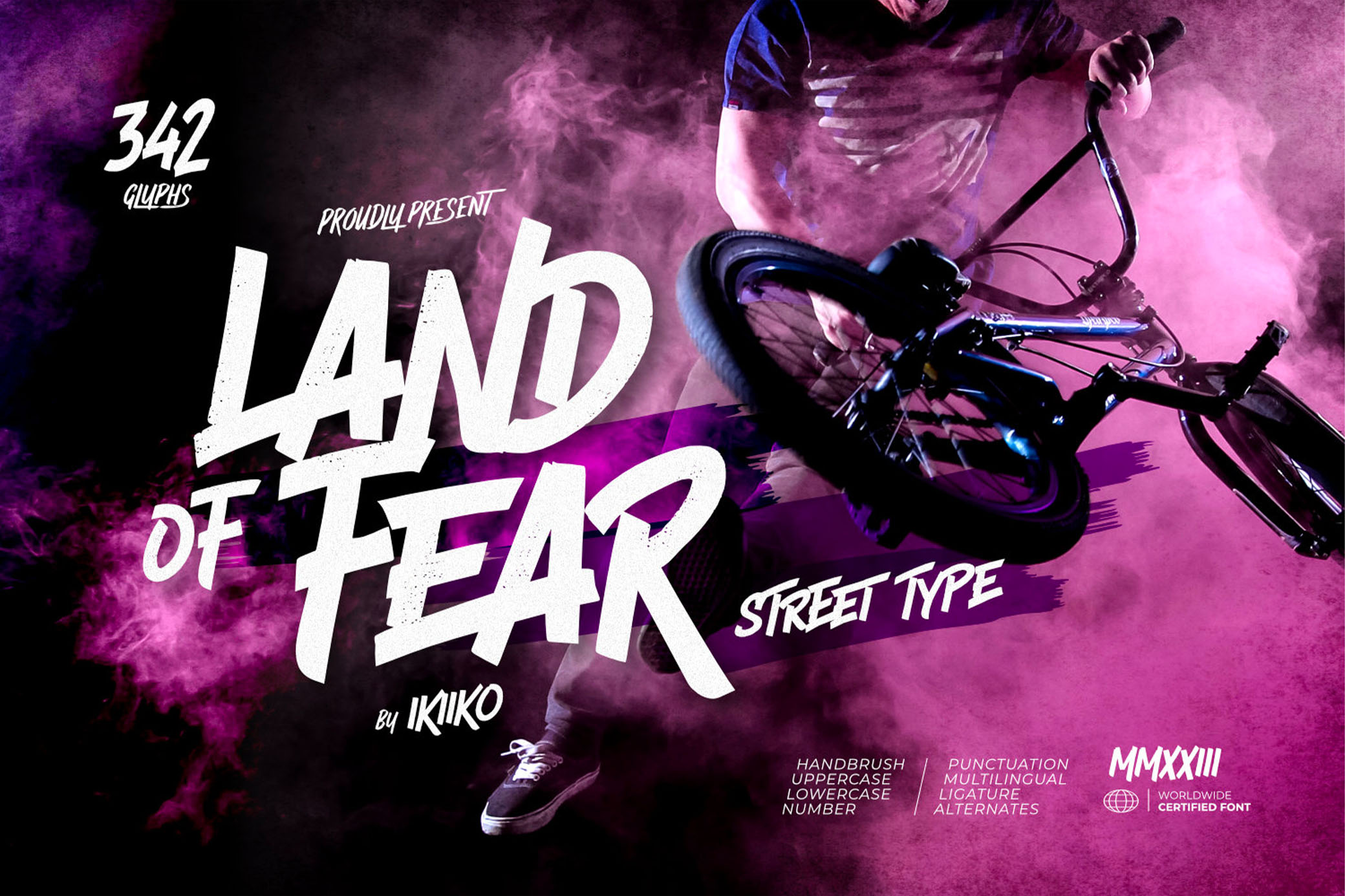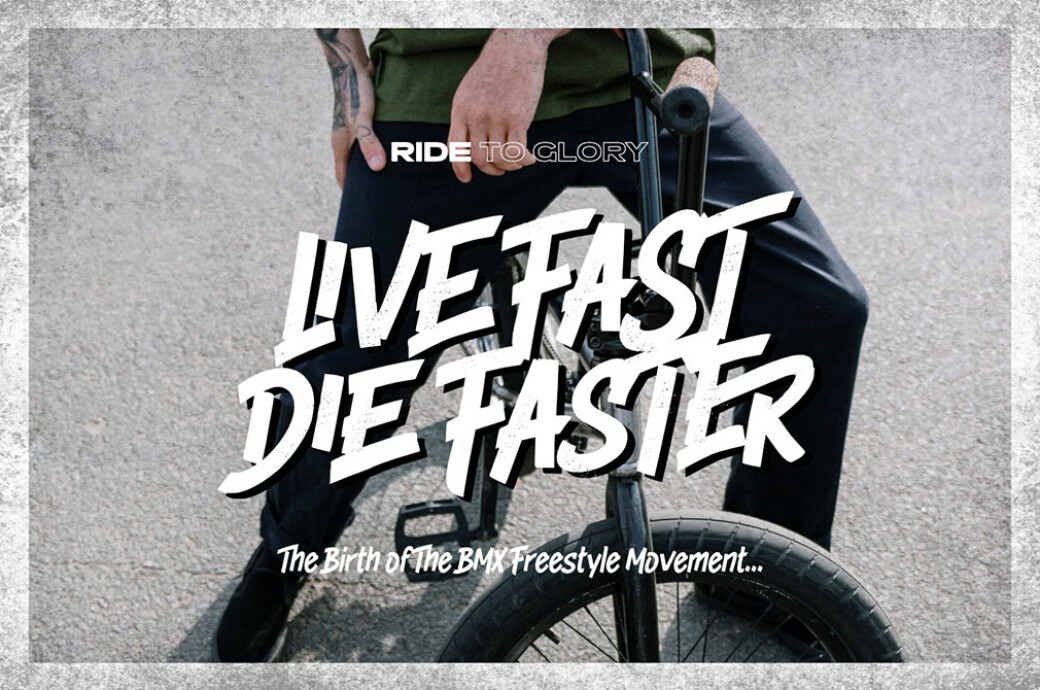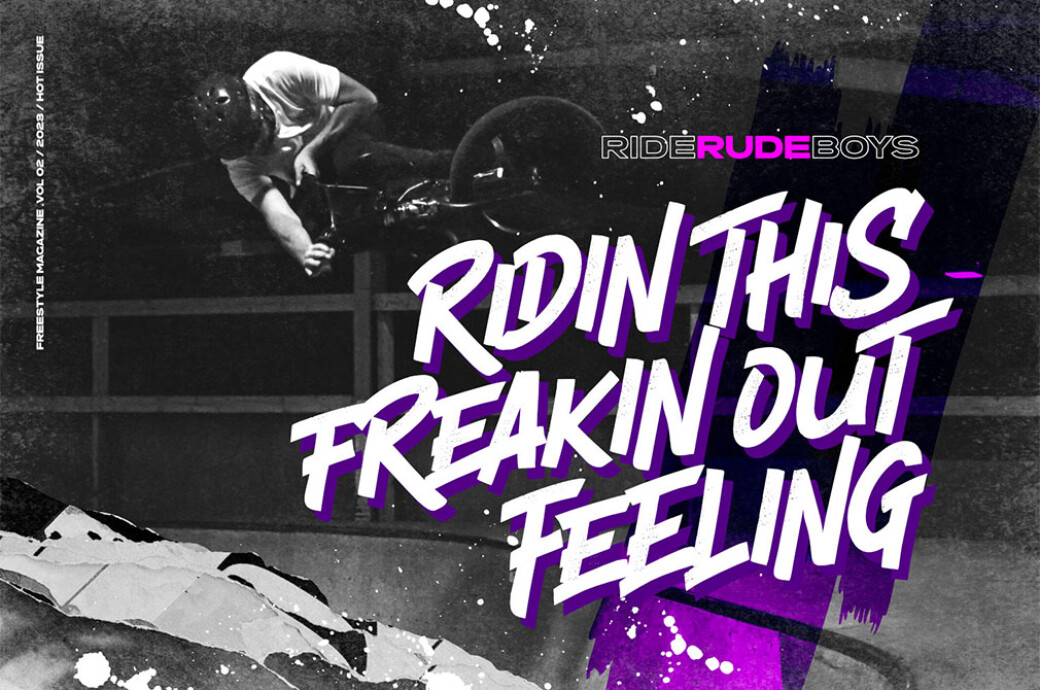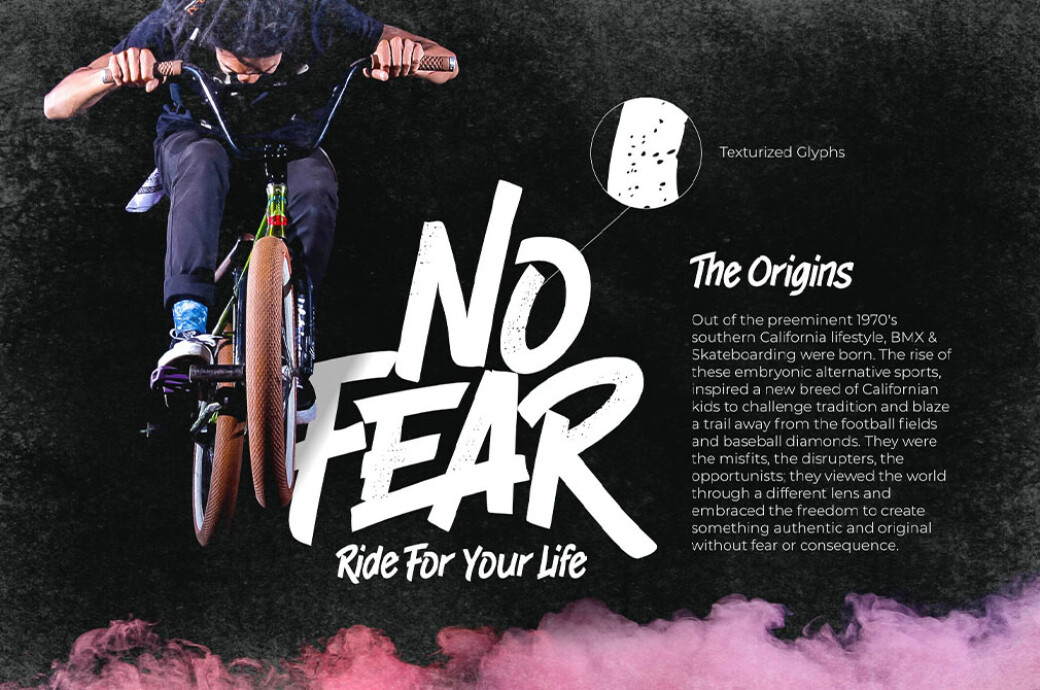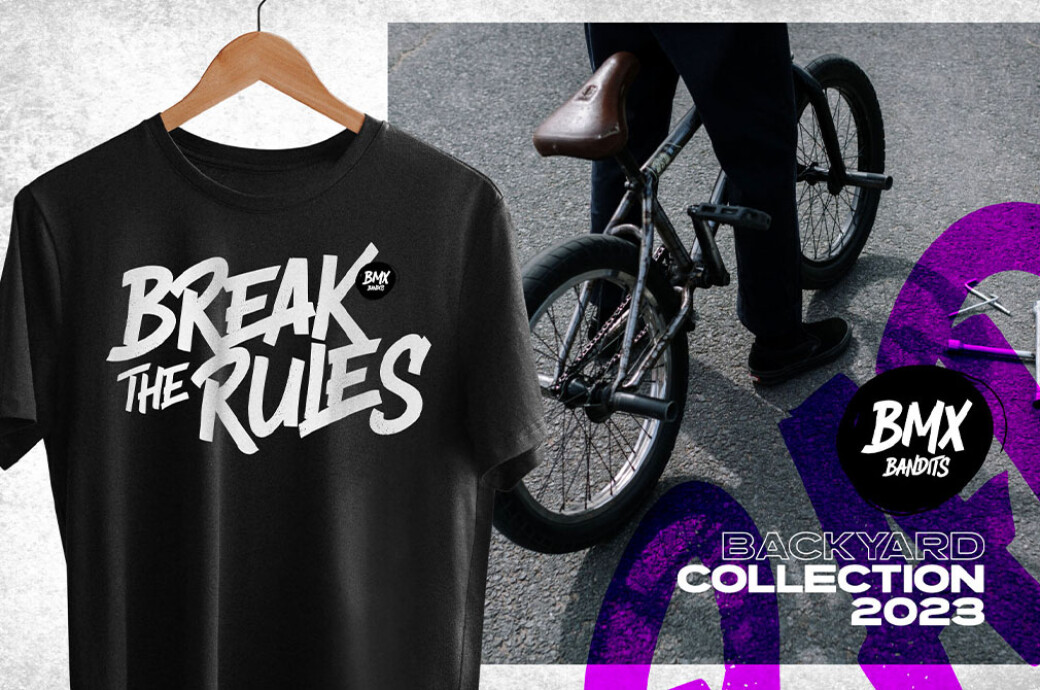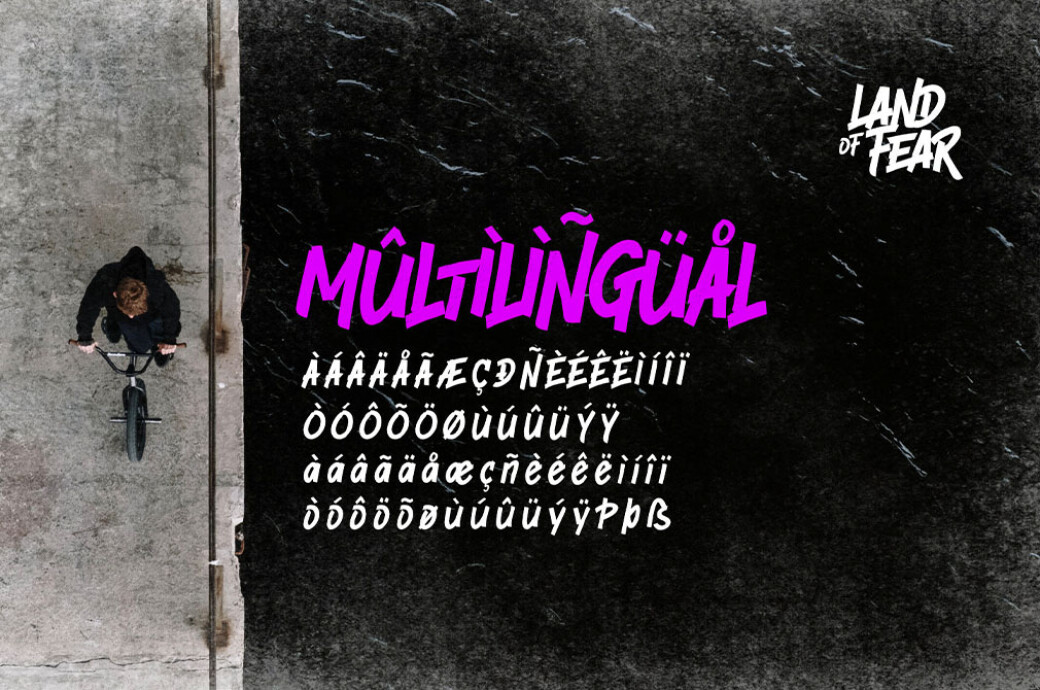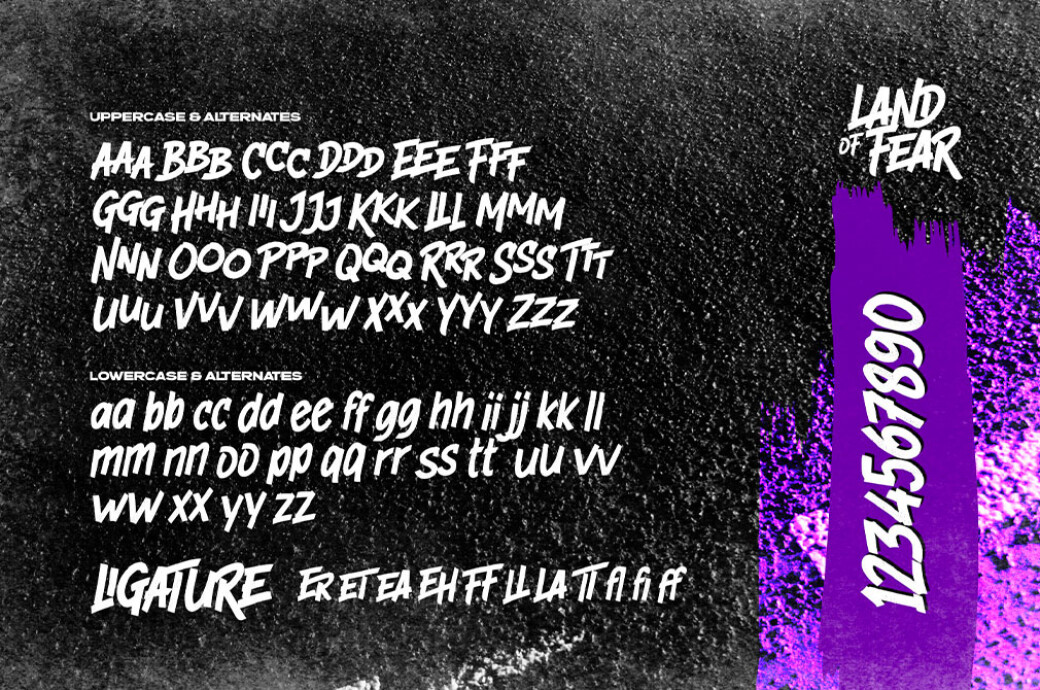
Land Of Fear — Street Type
Land of Fear
This bold, grunge font with an urban feeling is a must for rebellious designers who are ready to break the rules! Don’t hold back yourself and enjoy the freedom the type provides.The edgy, gritty look of this font is everything you need and more when it comes to sport-themed projects or the ones that need an urban feeling. The typeface includes upper & lowercase letters, numbers, punctuation and multilingual support. Plus, it has alternates and swashes so you’ll be able to create unique results!